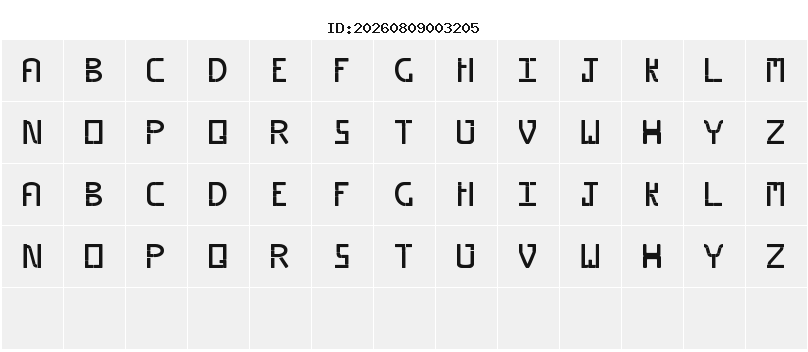
• Font Name: Piped
• Designer: Michael Hanley aka Milkhand
About Piped.ttf
Piped.ttf is a modern, elegant sans-serif font designed for ultimate readability and visual harmony. Perfect for branding, headlines, web design, and print materials.